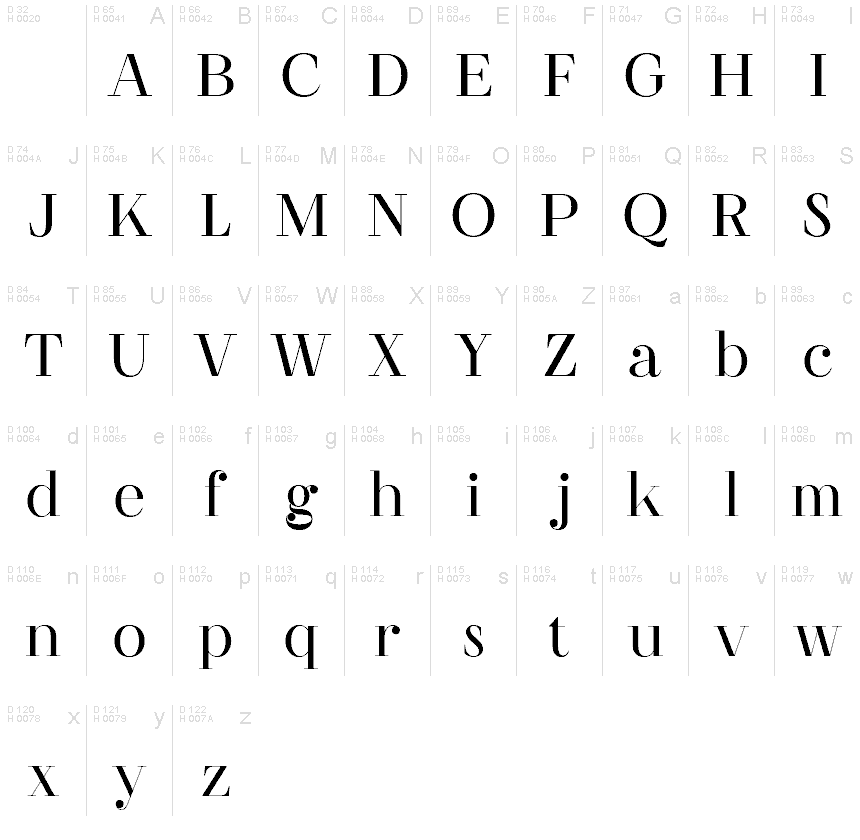
CS Calping Demo Regular
CS Calping font from Craft Supply Co. is a free serif font that features the perfect combination of elegance and sophistication. With a timeless design that effortlessly conveys feelings of formality, the font offers versatility to both print and digital projects to make them worthy of attention, no matter what message they carry.
It can be downloaded and used for branding designs including those for high-end clothing brands and signature perfumes, advertisements campaigns, flyers, magazines, business cards, landing pages designs alongside their headers or titles, applications designs (iOS or Android), websites menu bars designs, or blog posts headlines.